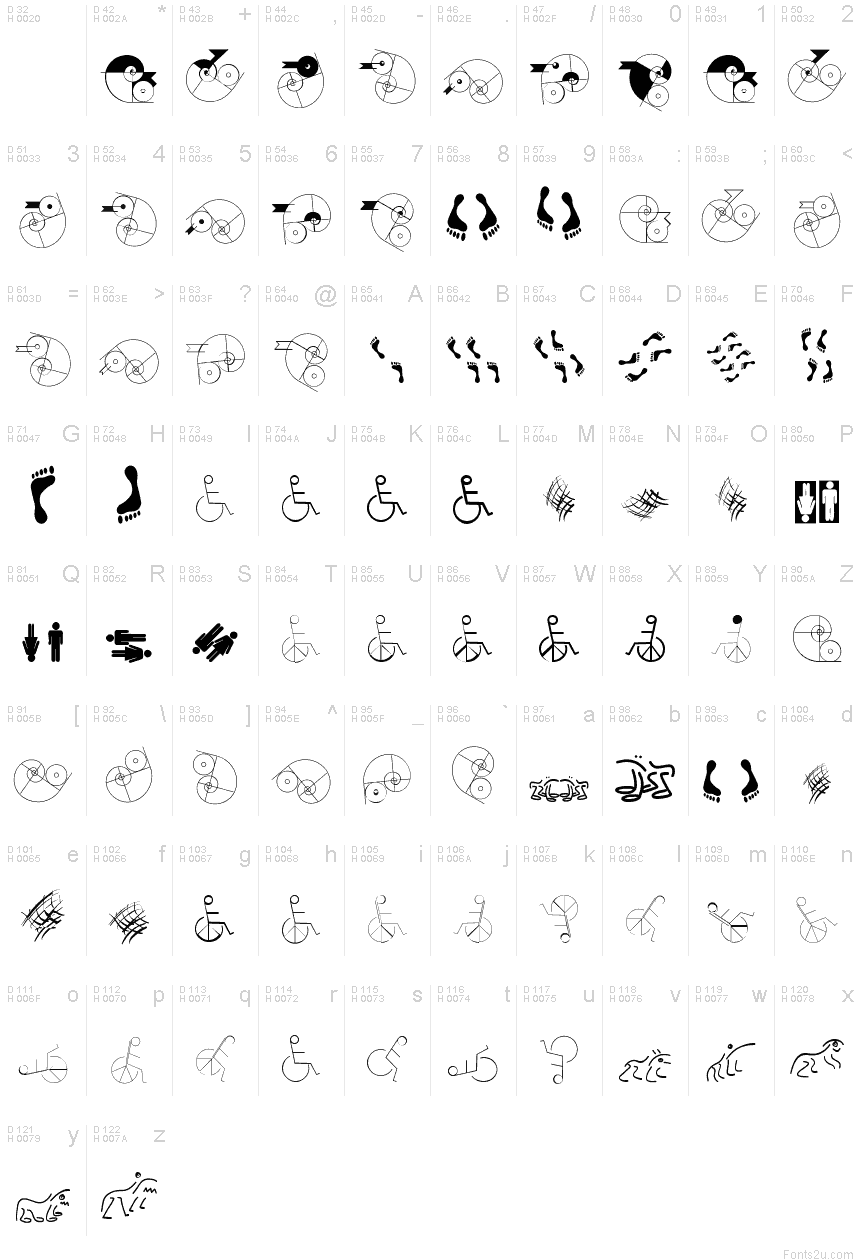
Motion Tools by Manfred Klein is a free abstract dingbat font built from wiry strokes, open circles, sweeping arcs, and sharply crossed linework. The symbols resemble experimental musical notation or diagrams for movement, with varied density and a deliberately hand-drawn edge.
That graphic-notation character suits electronic music posters and album packaging. Dance-event graphics use circular forms to suggest bodies, beats, or choreographic paths. Editorial illustration also fits, since the marks can become diagrams linking sound, motion, and gesture.